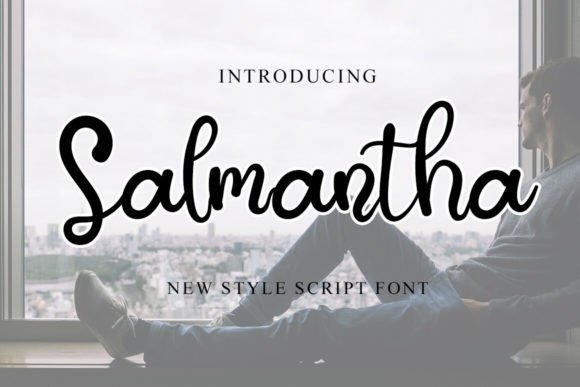
Unleash the allure of heartfelt words with Salmantha Font, a breathtaking script font family crafted to capture the essence of romance and poetic expression. This exquisite font, brought to life by the visionary Bill Kiss Studio, is a symphony of elegance and charm, designed to make your poetic creations come alive.
With Salmantha Font, your words will dance across the page, evoking emotions with every stroke. Its delicate curves and graceful flourishes add a touch of whimsy and playfulness, perfectly capturing the essence of romantic encounters and heartfelt confessions. Whether you're a seasoned poet or a budding wordsmith, Salmantha Font will elevate your writing, transforming it into a visual masterpiece.
Experience the versatility of Salmantha Font, a font that effortlessly adapts to a wide range of romantic themes and styles. From classic love sonnets to contemporary prose, Salmantha Font seamlessly blends with your words, enhancing their beauty and impact. Its natural and unique style grants you the freedom to explore your creativity, allowing your poetic vision to shine through in every line.
Dive into the world of Salmantha Font and discover a treasure trove of typographic possibilities. Its carefully crafted characters are a perfect match for wedding invitations, anniversary cards, love letters, and any other project where romance takes center stage. The font's intricate details add a touch of sophistication, while its overall aesthetic exudes warmth and charm.
With Salmantha Font, you'll captivate your audience, drawing them into the depths of your poetic world. Its enchanting aura will leave a lasting impression, making your words resonate long after they've been read. Embrace the allure of Salmantha Font and let your romantic creations flourish.